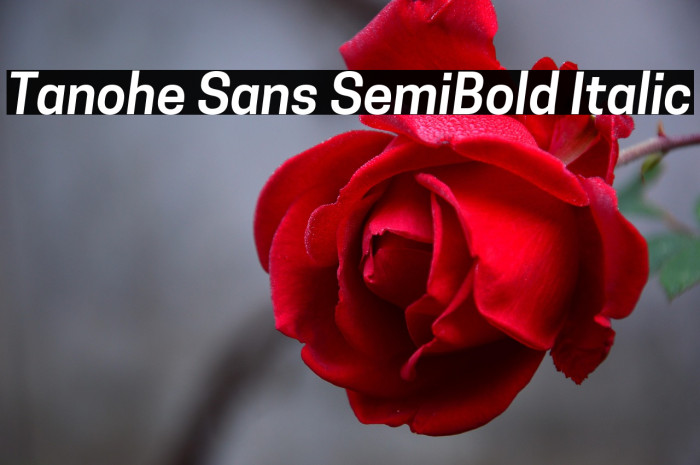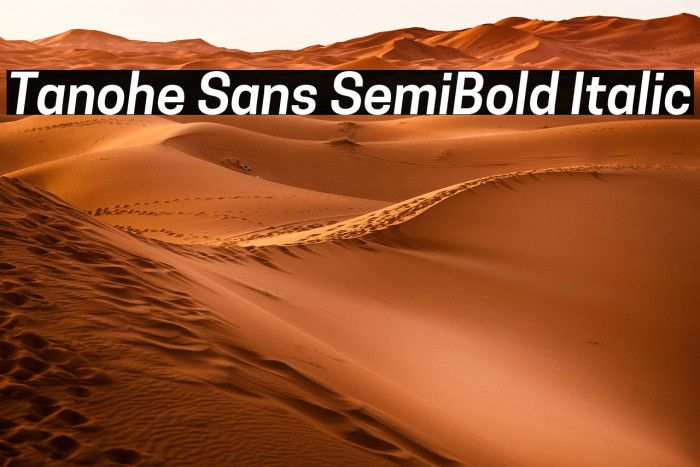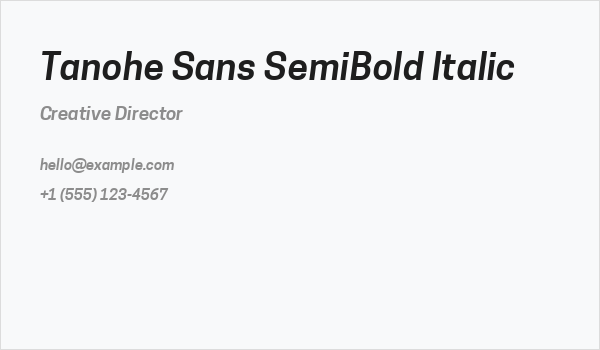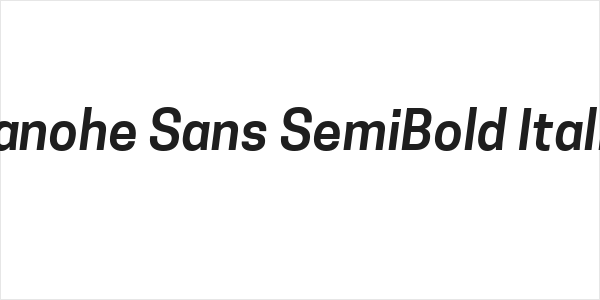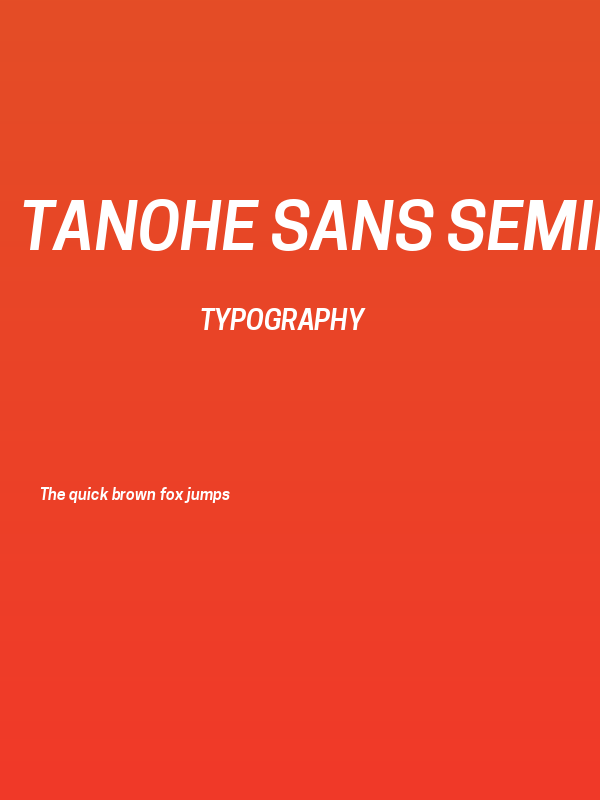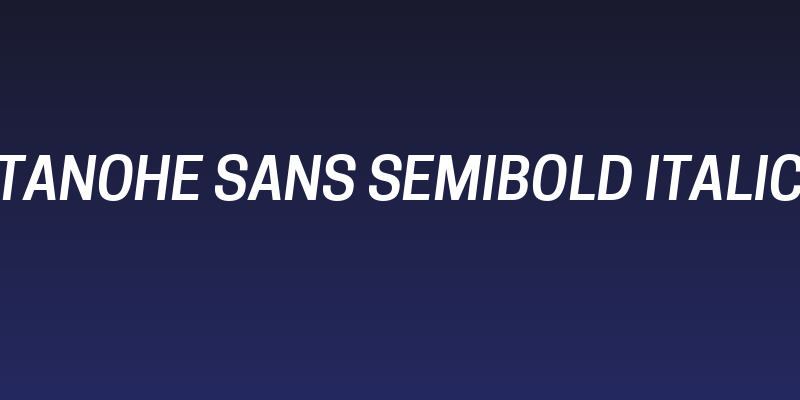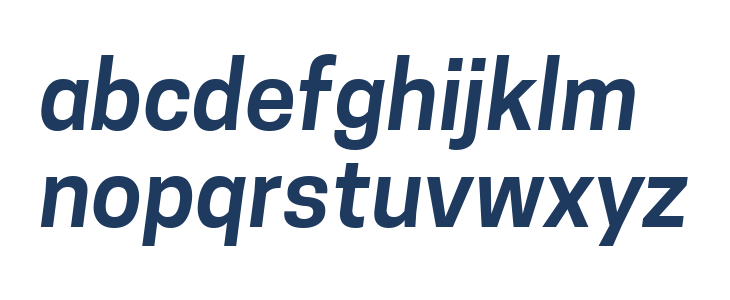
Tanohe Sans SemiBold Italic Font
Tanohe Sans SemiBold Italic Description
This typeface presents a clean and modern aesthetic, characterized by its semi-bold weight and italic style. The letters are slightly slanted, adding a dynamic and forward-moving feel. The sans-serif design ensures a sleek and uncluttered appearance, making it highly legible across various sizes. The uniform stroke width contributes to a harmonious and balanced look, while the moderate character spacing provides clarity and readability. This font is versatile, suitable for both digital and print media, and can effectively convey a contemporary and professional tone.